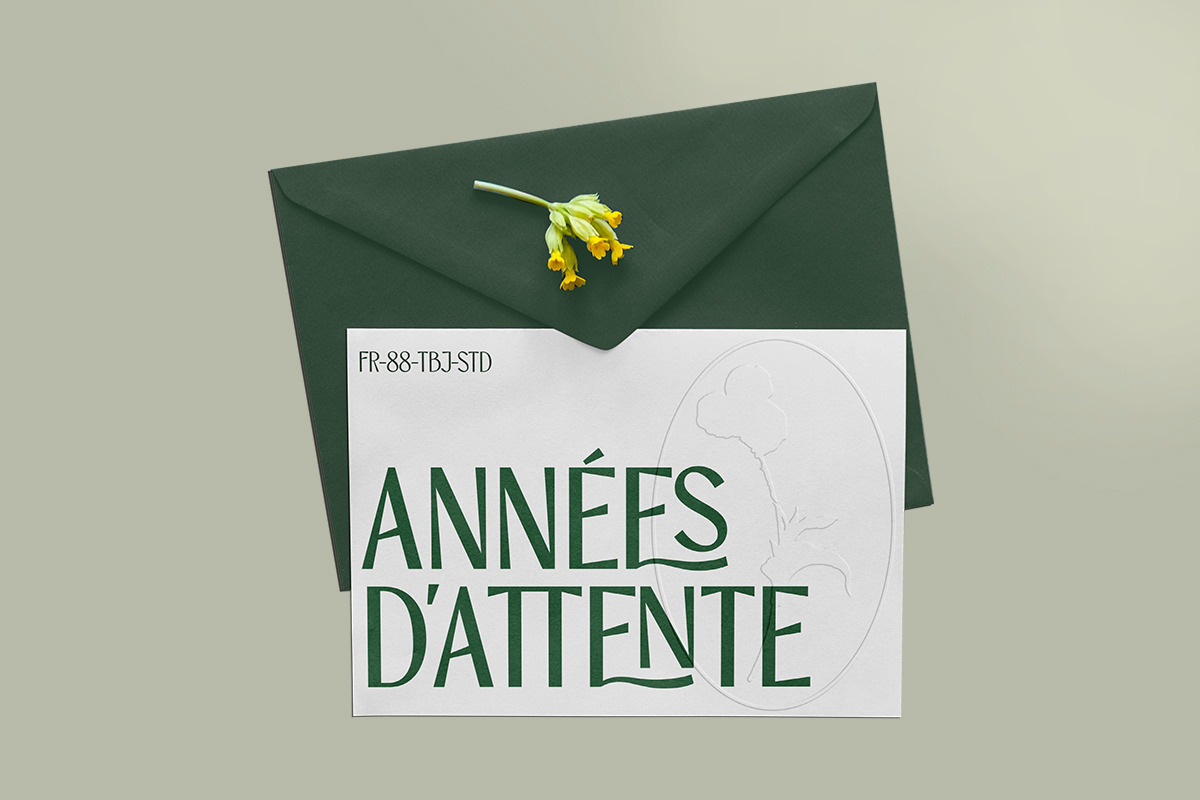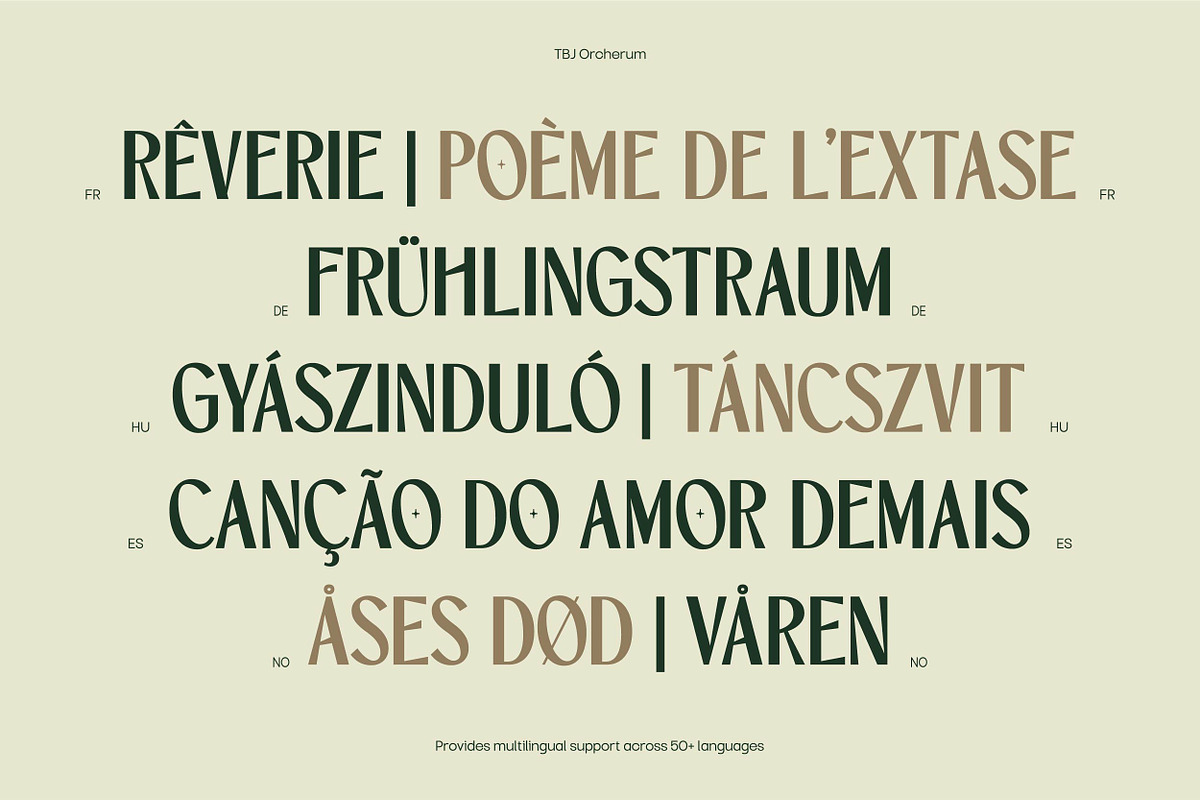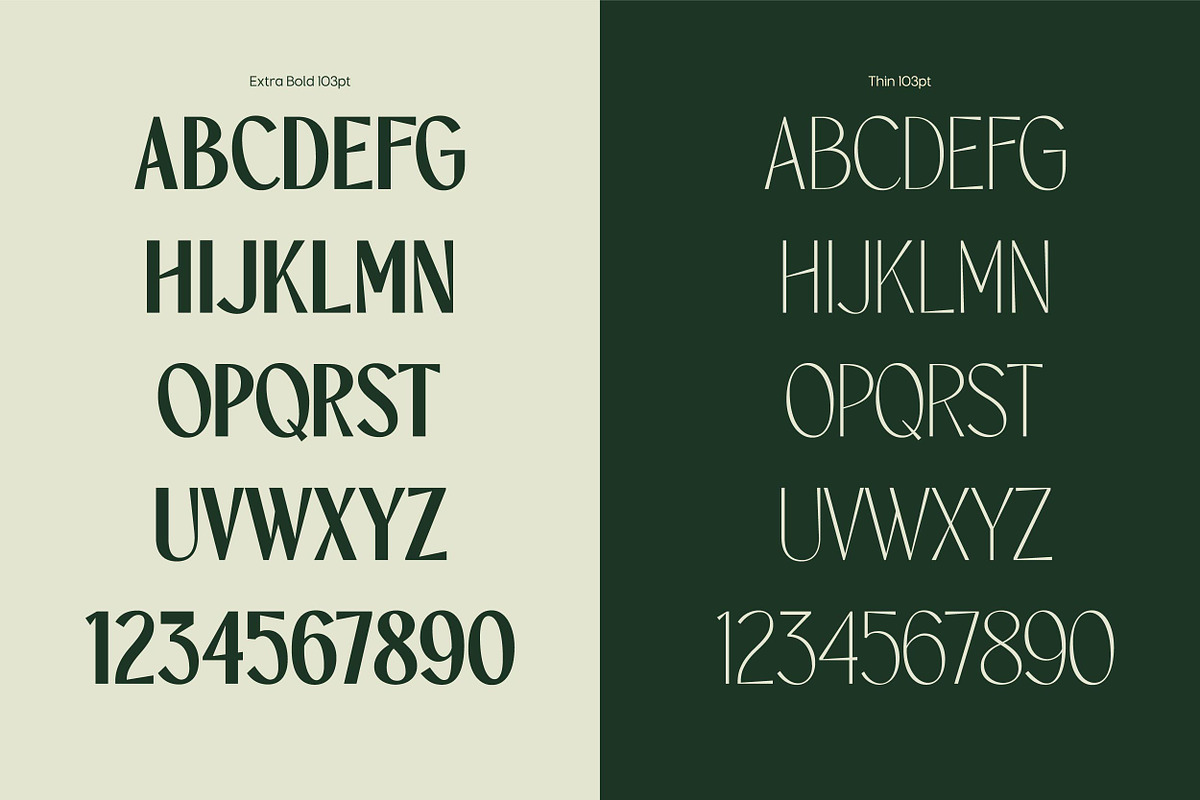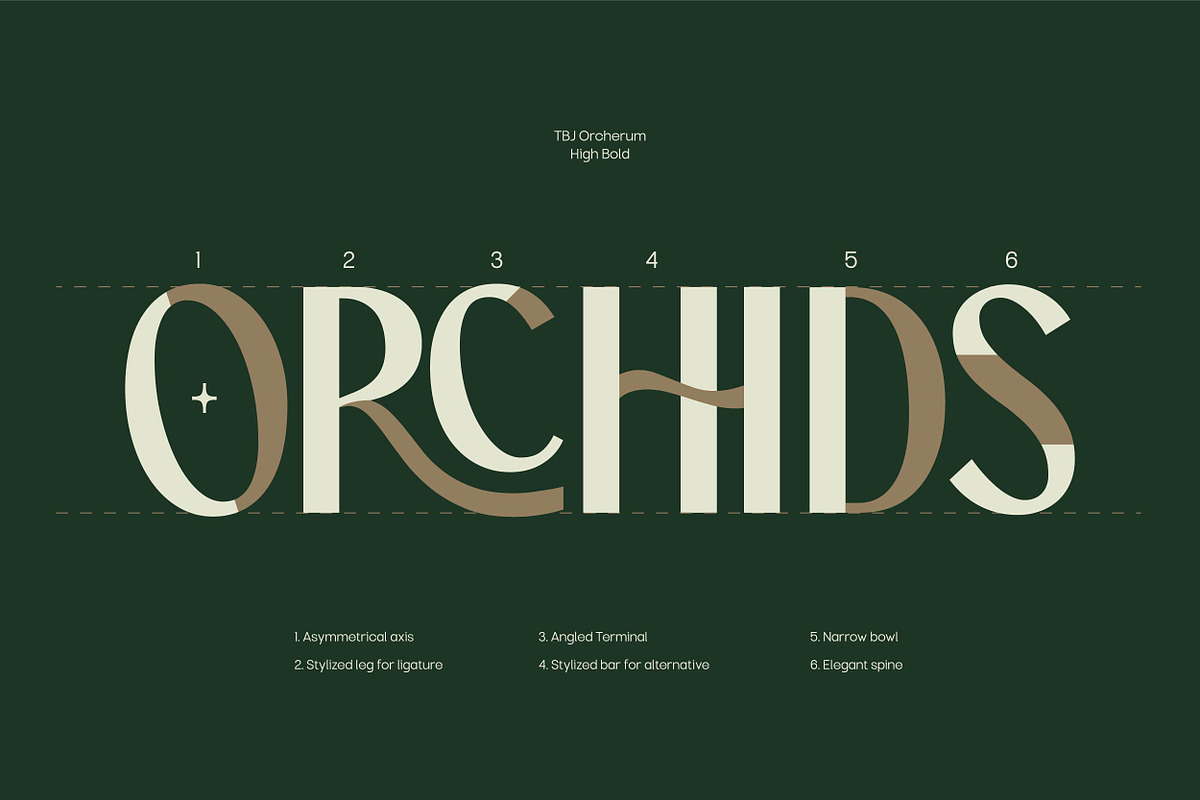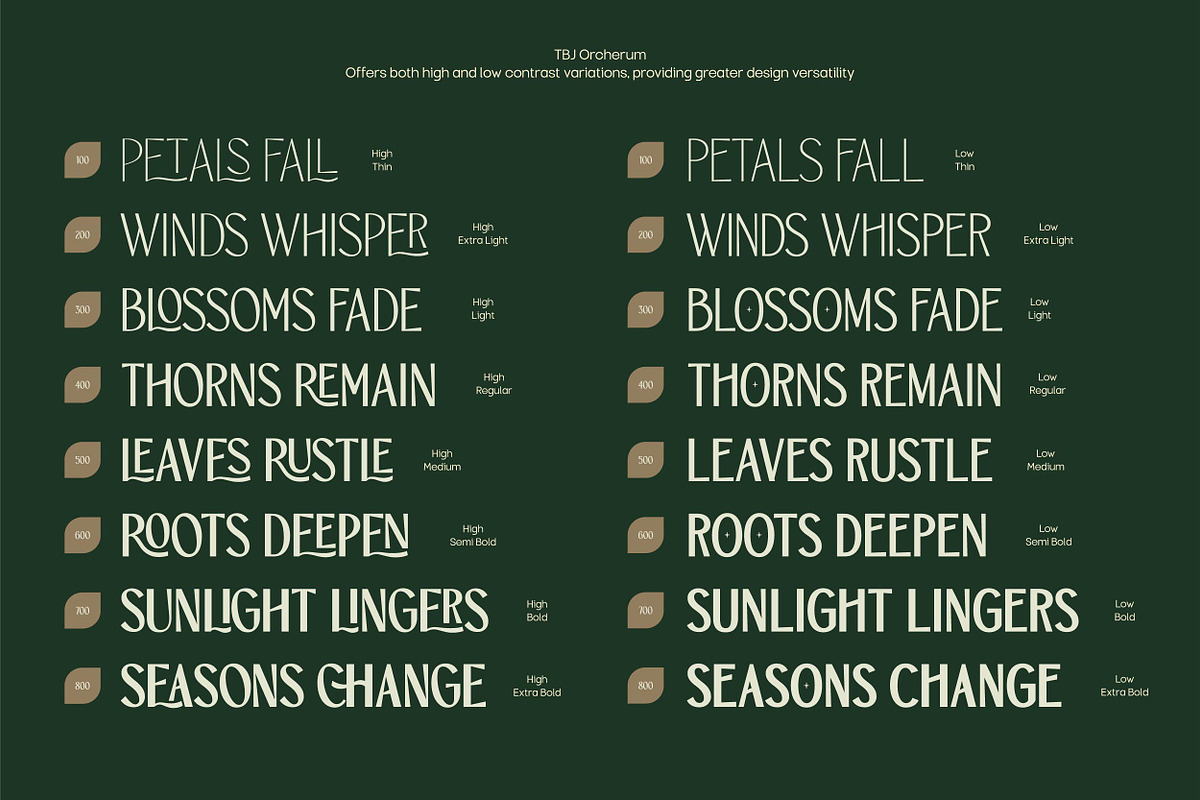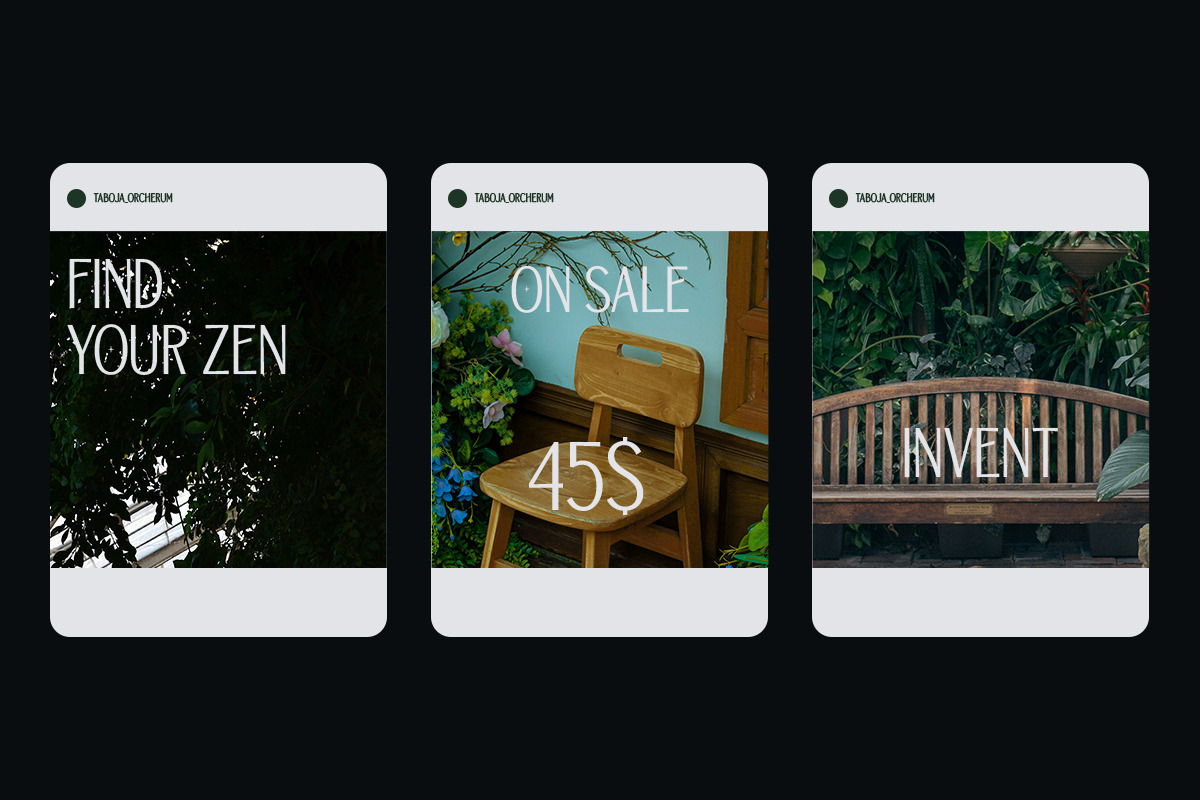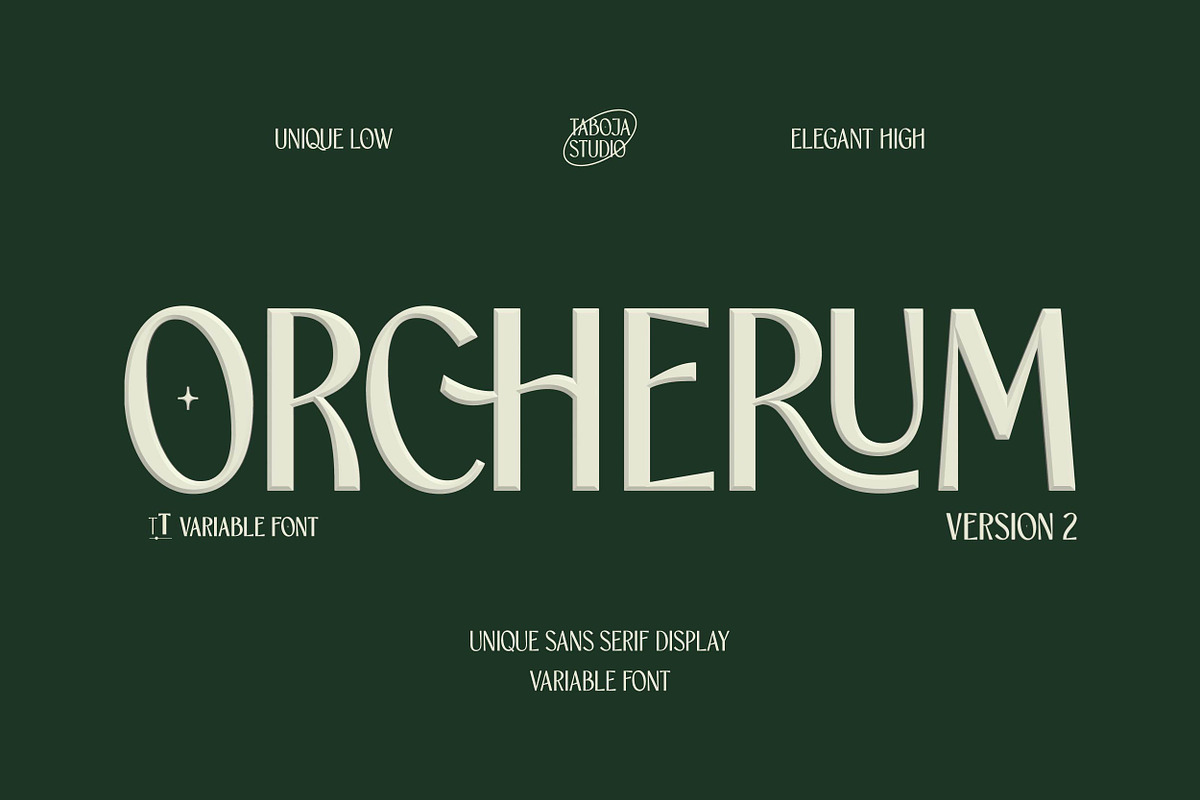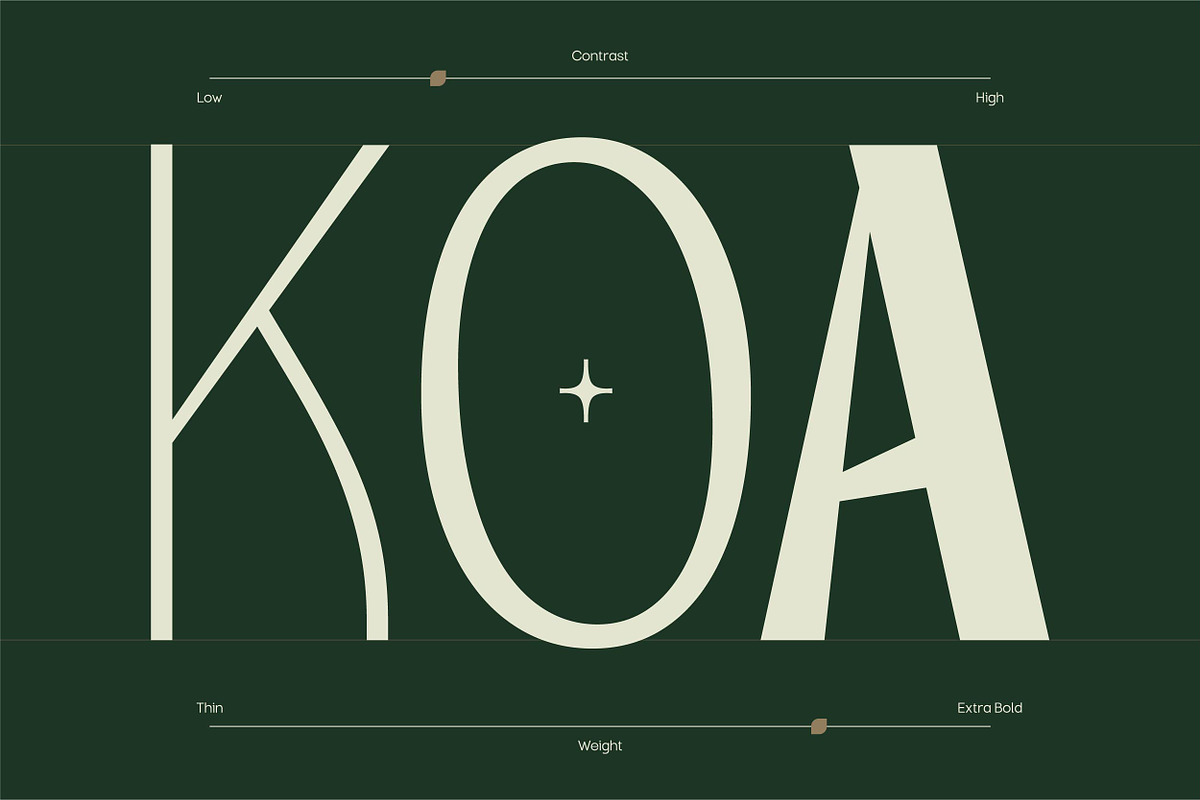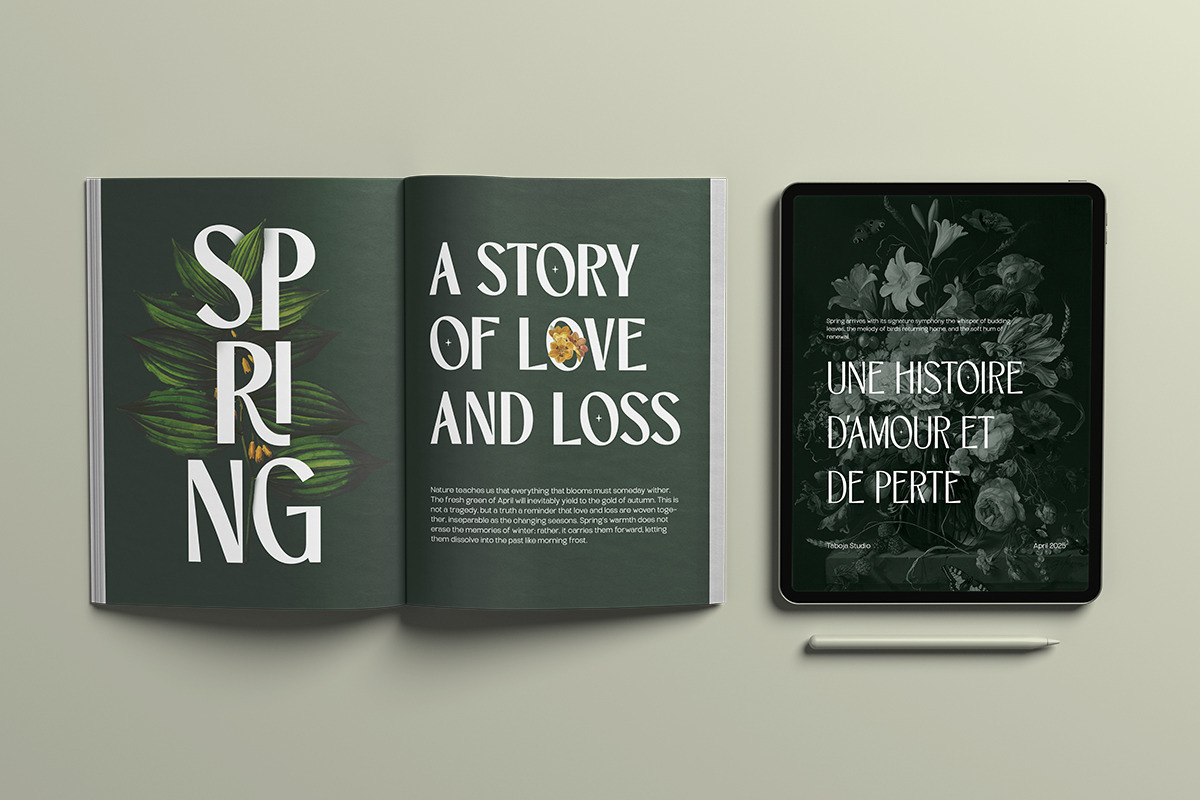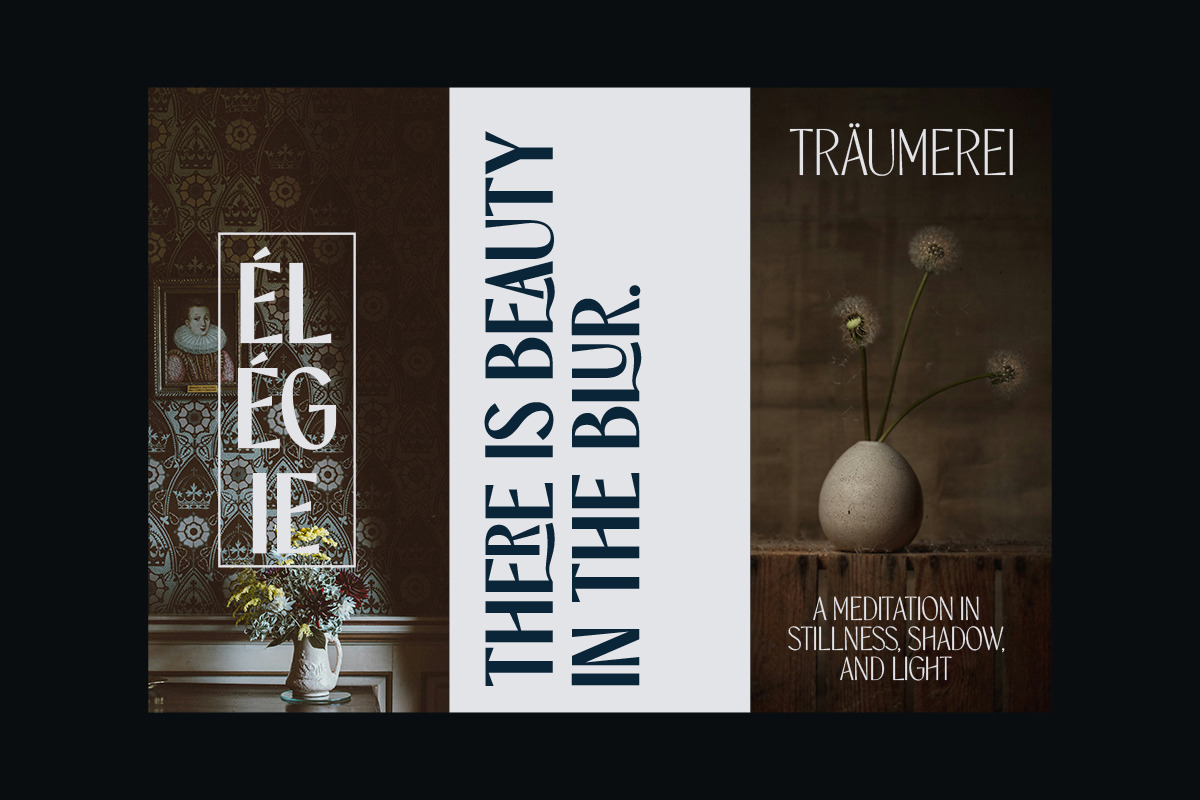
TBJ Orcherum Unique Ligatures Sans
We reimagined TBJ Orcherum with one question in mind: “What if we enhanced the contrast and weight to make it not just functional but truly unforgettable?” The result is TBJ Orcherum Version 2, a refined serif typeface that blends timeless elegance with bold modernity.
If you admired the original TBJ Orcherum for its sophisticated charm, the V2 update takes it to new heights. By introducing Low and High Contrast styles, we’ve made the font even more versatile. These updates ensure TBJ Orcherum excels as a display font, adding a dramatic flair to posters, editorial layouts, and branding.
The high-contrast version highlights the font’s unique character, delivering a striking presence that stands out in logotypes, magazine headlines, and luxury branding. Meanwhile, the low-contrast version retains subtlety and clarity, making it ideal for body text and extended reading. This duality creates a seamless balance, giving designers the tools to adapt TBJ Orcherum to both functional and expressive applications.
Key Update Features:
Expanded Weight Range: From delicate light styles to commanding bold weights, TBJ Orcherum now supports a broader spectrum of design needs.
Enhanced Contrast Options: Choose between Low Contrast for understated sophistication and High Contrast for dramatic, high-impact designs.
Display-Optimized Forms: Perfect for headlines, logos, editorial spreads, and packaging, the new contrast levels make TBJ Orcherum stand out in both print and digital media.
Timeless Serif Design: Rooted in classic typography but refined for modern usage, TBJ Orcherum maintains a balance of elegance and functionality.
Multi-Application Versatility: A serif font that feels at home in luxury branding, corporate identities, mid-century modern design, and social media graphics.
When we developed the contrast updates, we didn’t just aim for a sharper visual appeal—we wanted to make TBJ Orcherum unique and special. The distinctive high-contrast strokes bring a sense of drama and artistry, while the low-contrast variants keep things clean and professional. This makes TBJ Orcherum V2 a must-have font for designers seeking both form and function.